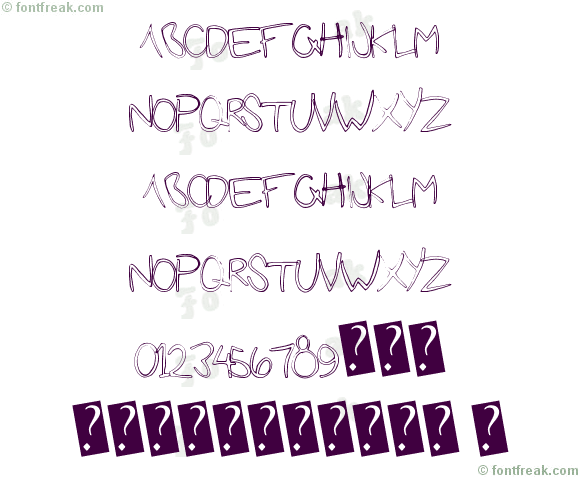
FutureGirlfriend
About FutureGirlfriend
The FutureGirlfriend font by Xerographer Fonts is a unique display typeface that captures a playful and whimsical essence, making it an exciting addition to any design project. This font features a hand-drawn style that is both approachable and creative, perfect for conveying a sense of fun and individuality. The strokes are varied, providing an organic feel that contrasts effectively with more traditional typefaces. The spacing is thoughtfully designed, allowing for easy readability while maintaining a casual aesthetic.
FutureGirlfriend is ideally suited for a variety of creative applications. Its playful nature makes it an excellent choice for wedding invitations, where a touch of charm can enhance the overall design. Similarly, it shines in the realm of movie posters, where its distinctive style can capture attention and evoke curiosity. Additionally, this font works well for restaurant menus that aim to create a relaxed and inviting atmosphere, as well as for social media graphics that require a punchy, eye-catching title. Graphic designers, small business owners, and content creators will find this font particularly useful as they strive to craft engaging visuals that stand out in a crowded marketplace.
What truly sets the FutureGirlfriend font apart is its ability to blend creativity with versatility. It captures a sense of nostalgia while remaining fresh and contemporary, making it a perfect fit for modern branding and promotional materials. With its unique flair and free availability, the FutureGirlfriend font free download is an essential resource for anyone looking to infuse their work with a touch of personality and charm. Embrace the charm of FutureGirlfriend and elevate your designs to new heights.